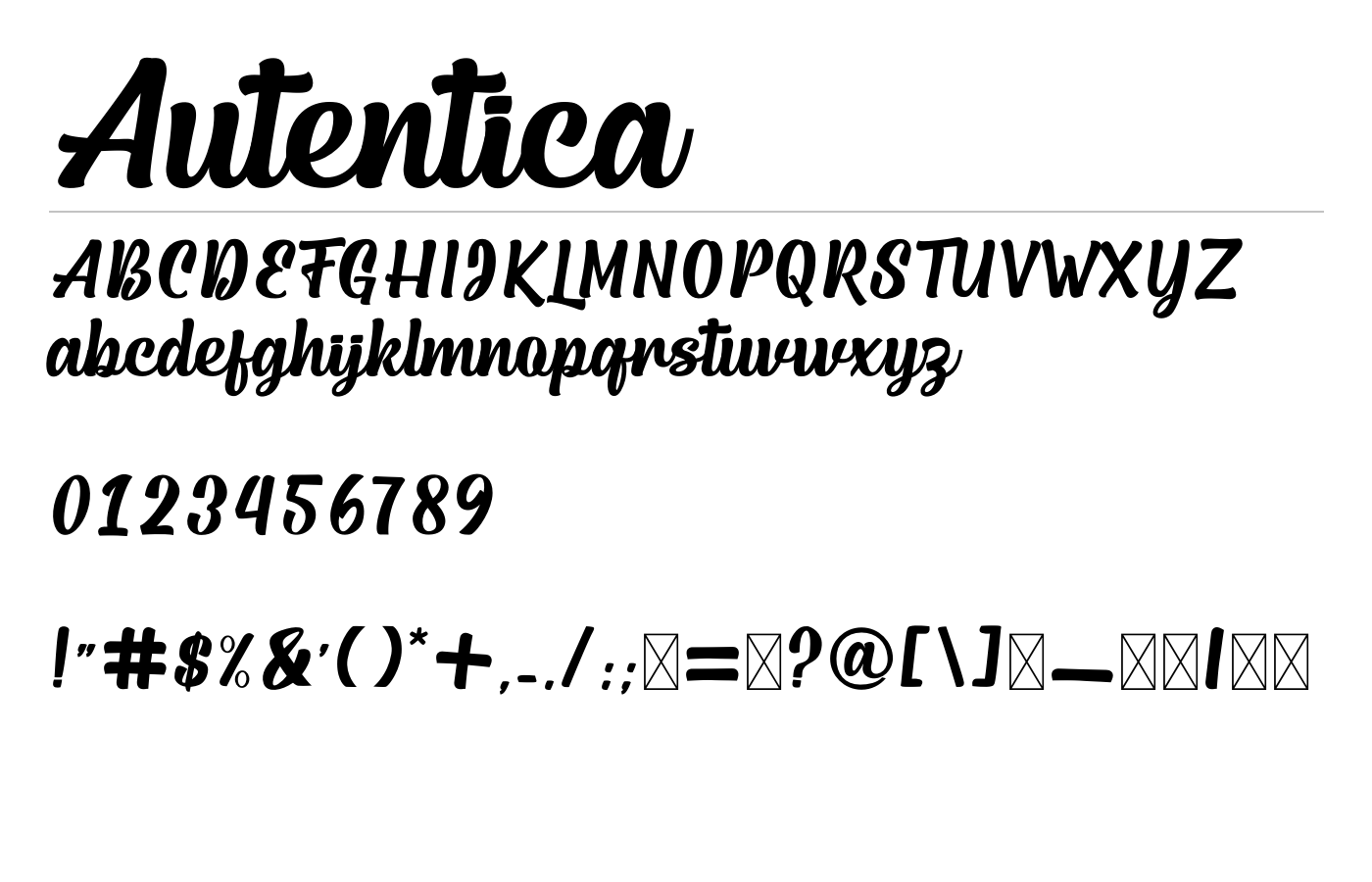
Autentica is a lively script font featuring bold, smooth strokes with a moderate contrast that gives it a friendly yet confident appearance. Its slightly condensed letterforms and distinctive calligraphic style make it ideal for branding, headlines, and packaging where a personal and authentic touch is desired. This font works wonderfully for creative projects that want to convey warmth and approachability without sacrificing style.
Autentica Font
About Autentica Font